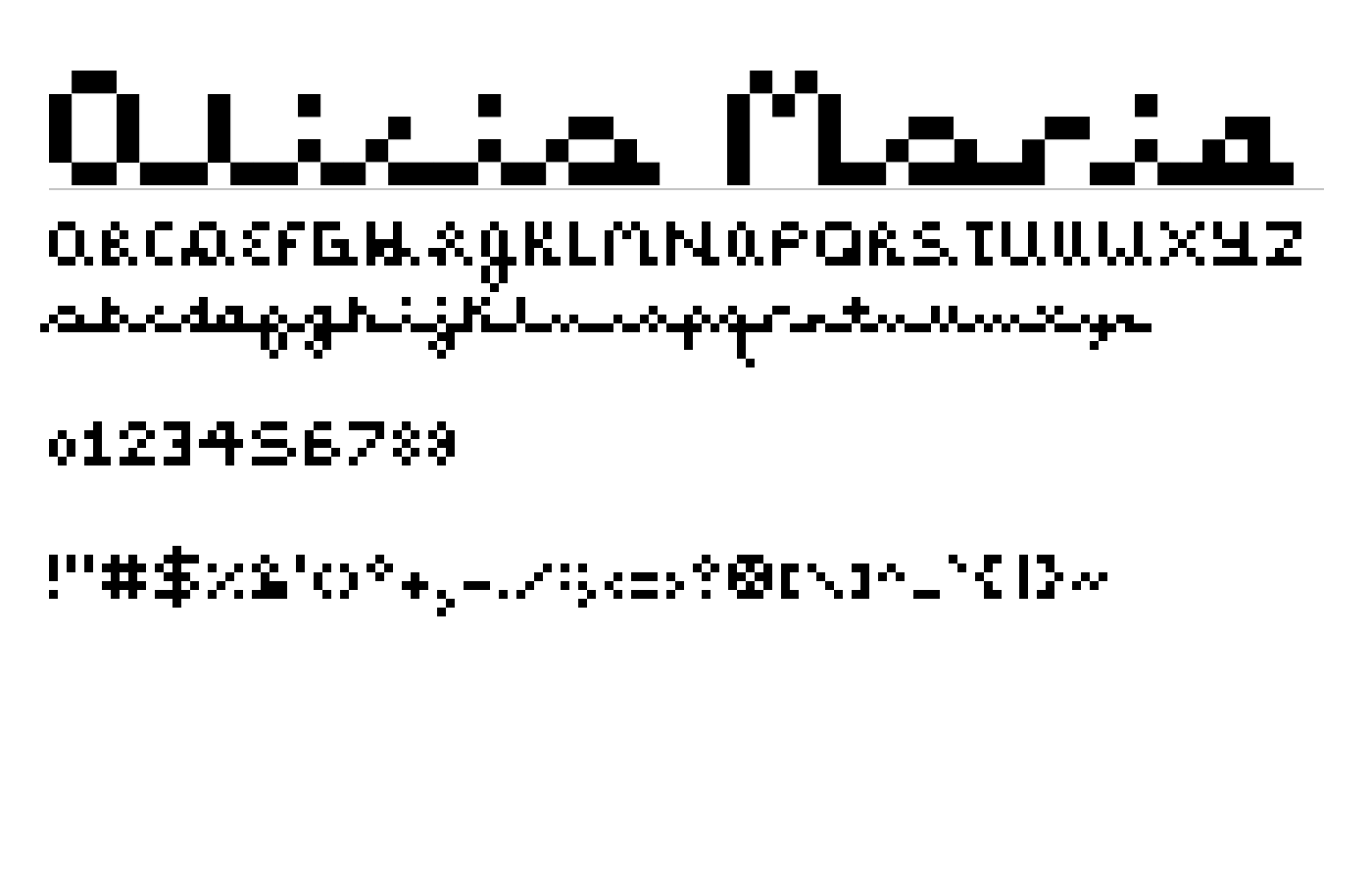
Alicia Marie is a pixel-inspired, monospace sans serif font with a retro digital vibe, featuring sharp, blocky letterforms and consistent stroke weight. Its playful yet minimalistic style makes it perfect for tech-themed designs, video games, or projects that want to evoke nostalgia from early computer graphics. This font stands out in headlines, logos, and digital displays where a vintage pixel look is desired.
Alicia Marie Font
About Alicia Marie Font